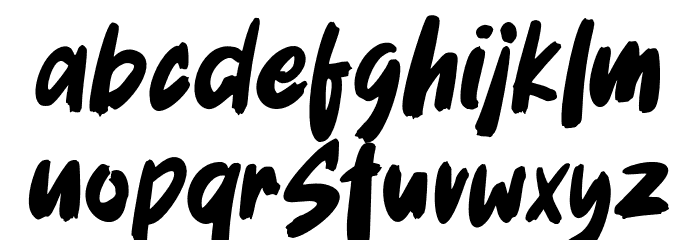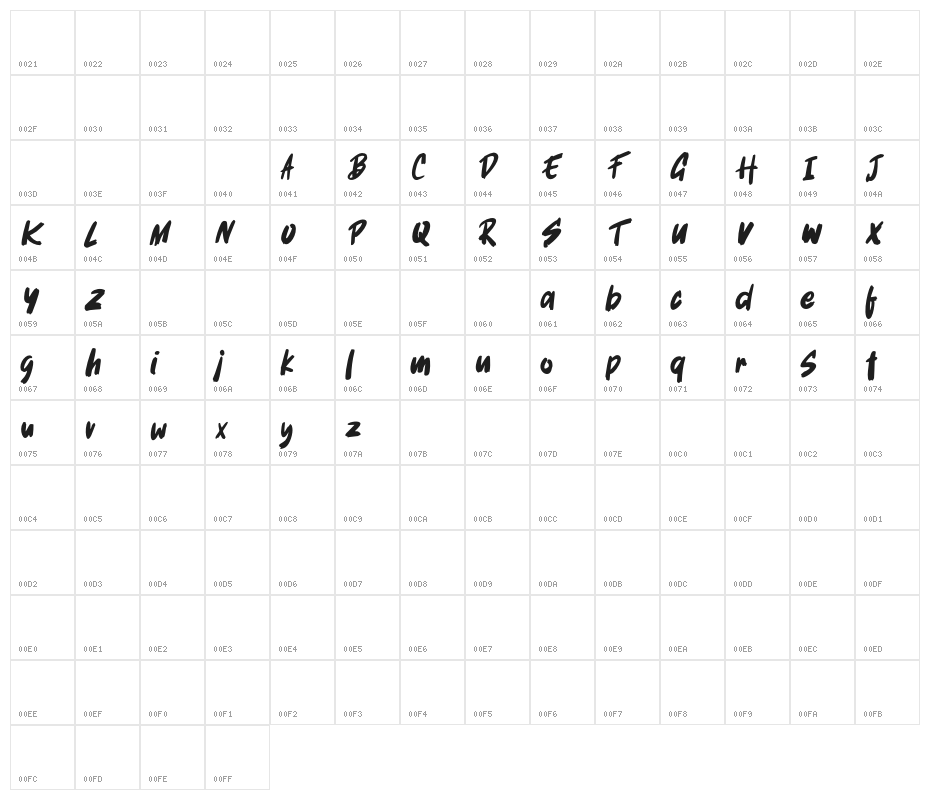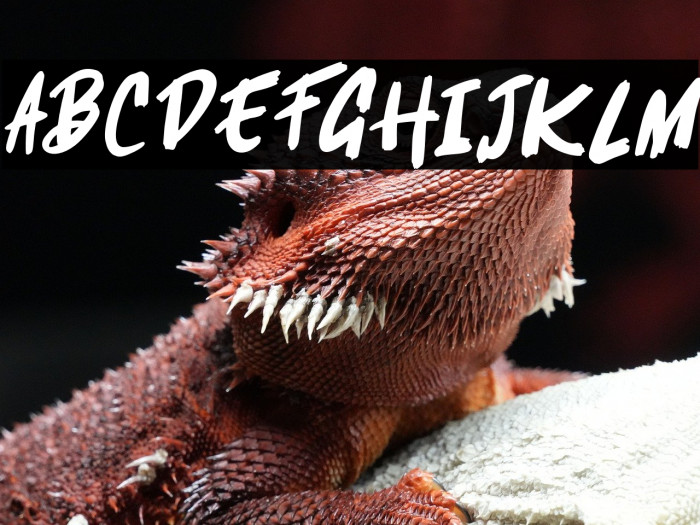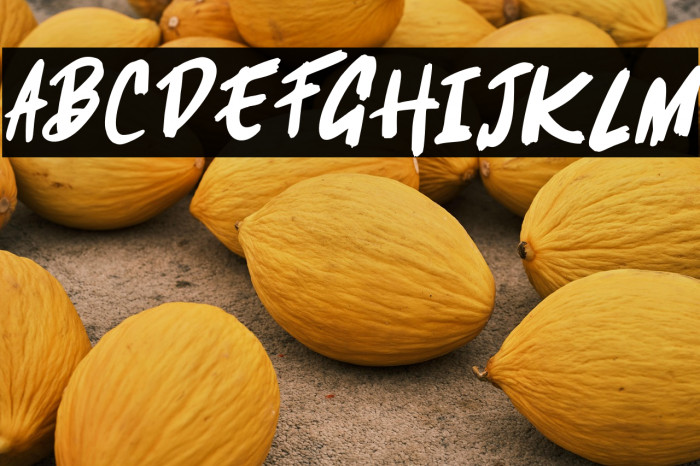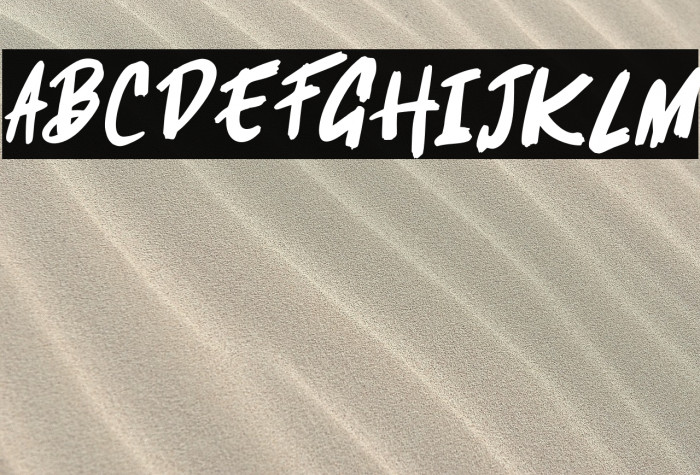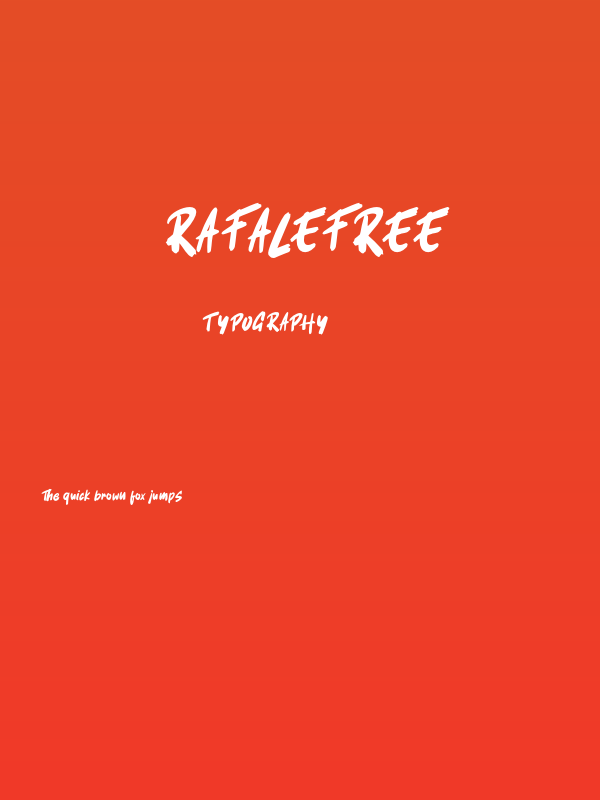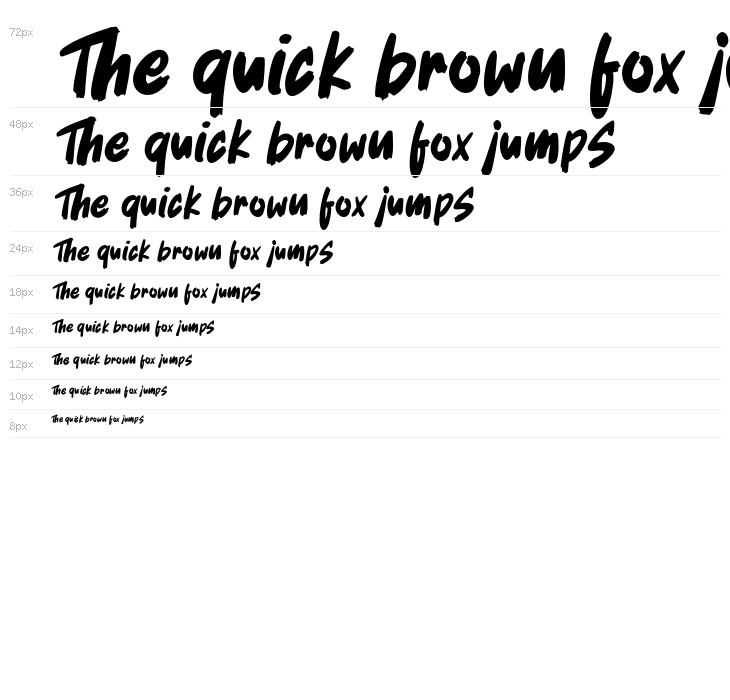
RafaleFREE Font
This font exudes a bold and energetic style, characterized by its thick, brush-like strokes that give it a dynamic and expressive appearance. The letters are slightly slanted, adding a sense of movement and fluidity. The uppercase and lowercase letters maintain a consistent weight, ensuring readability while still conveying a sense of artistic flair. The font's unique style is further enhanced by its irregular edges, which mimic the natural texture of hand-painted lettering. This makes it ideal for projects that require a personal and creative touch.
A bold, brush-style font with dynamic, expressive strokes.
- Proposed Projects: Ideal for branding, posters, headlines, and creative projects that require a personal and artistic touch.